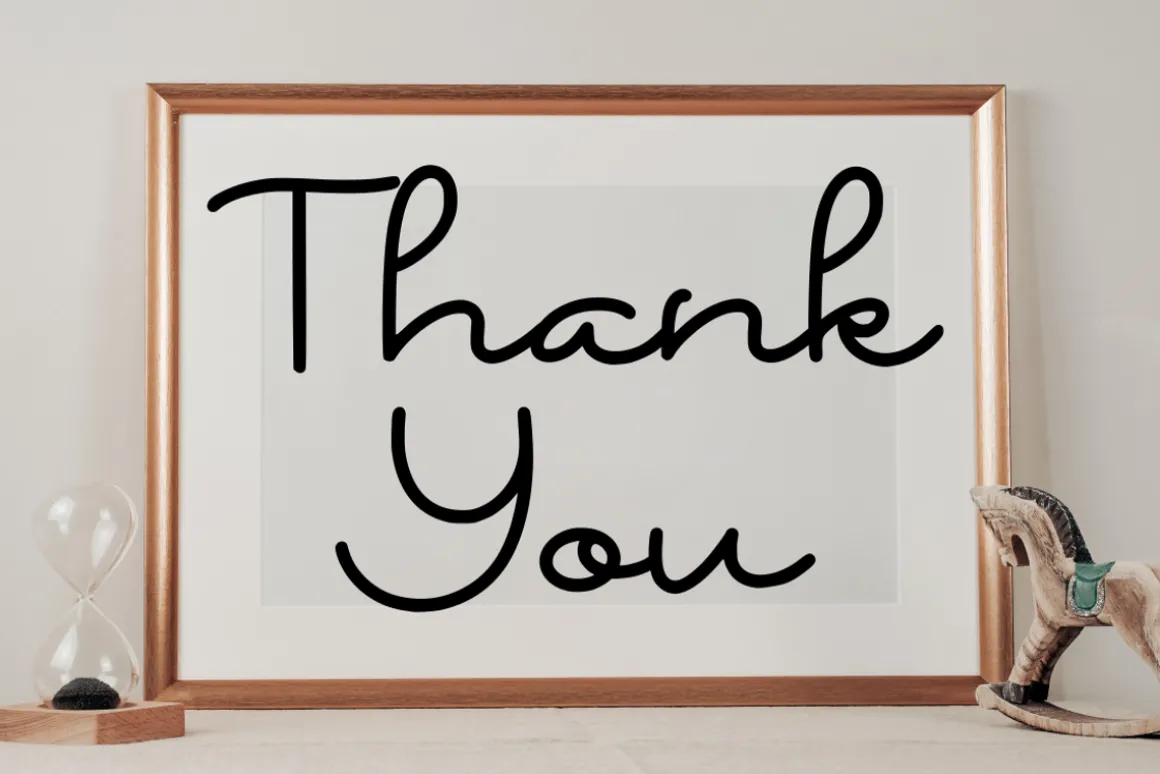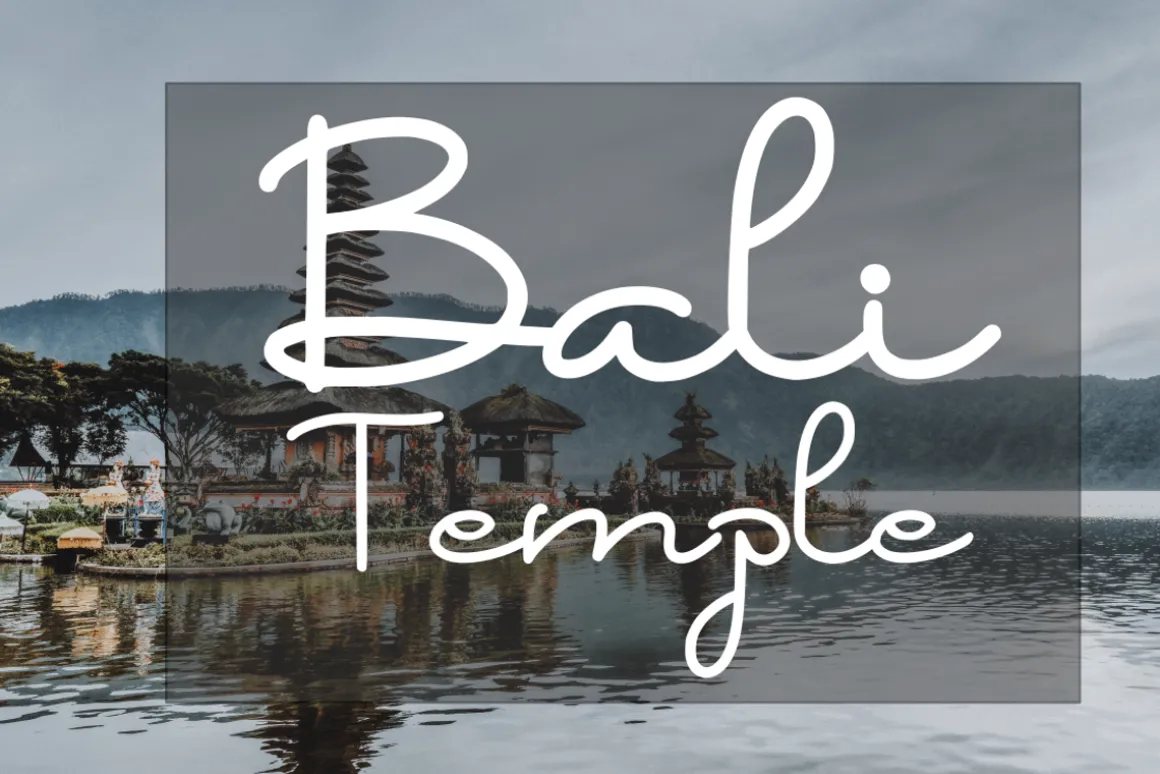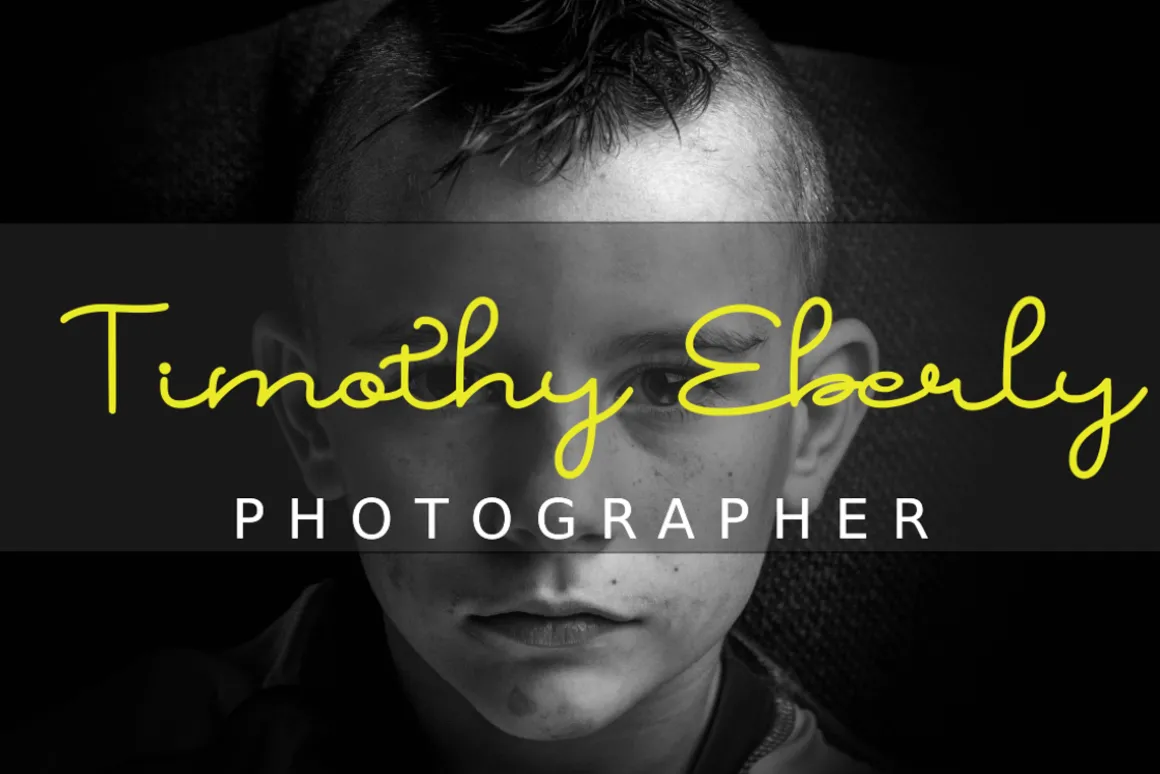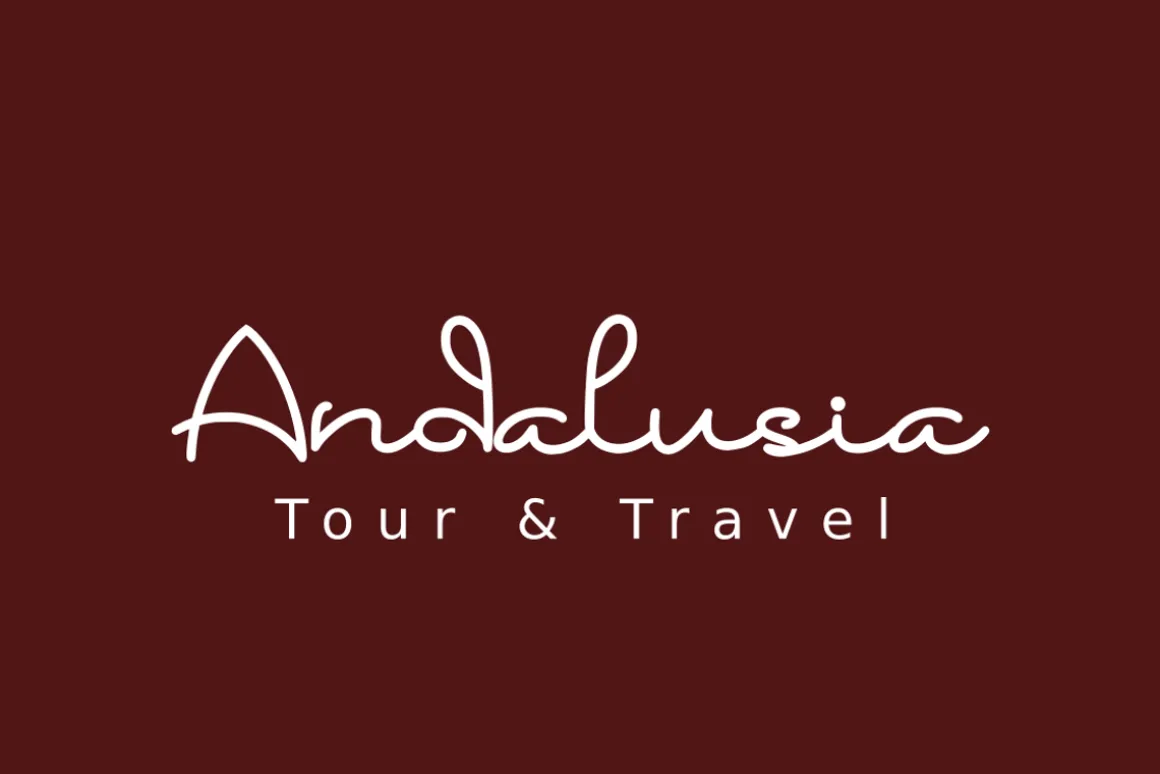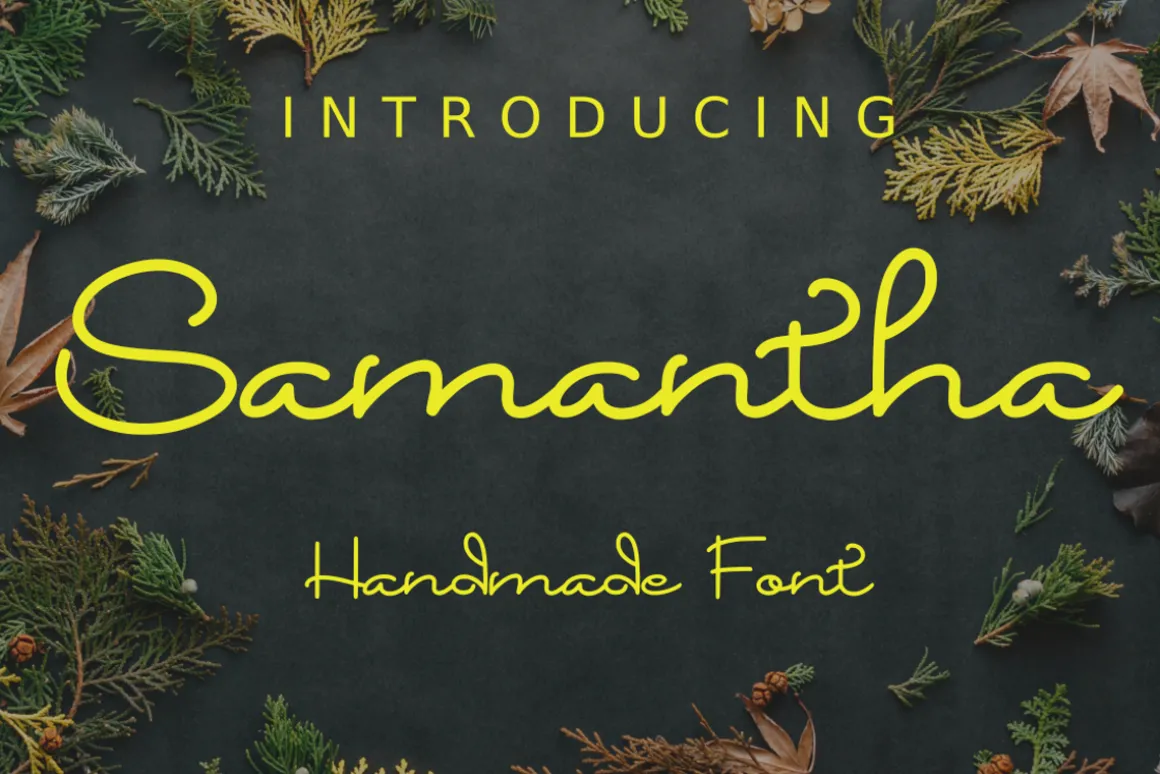
Samantha is Handwritten font.Samantha is perfect for branding, logo, watermark, business card, clothing, magazine, web, and any other design projects. looks Eye Catching & Naturally.